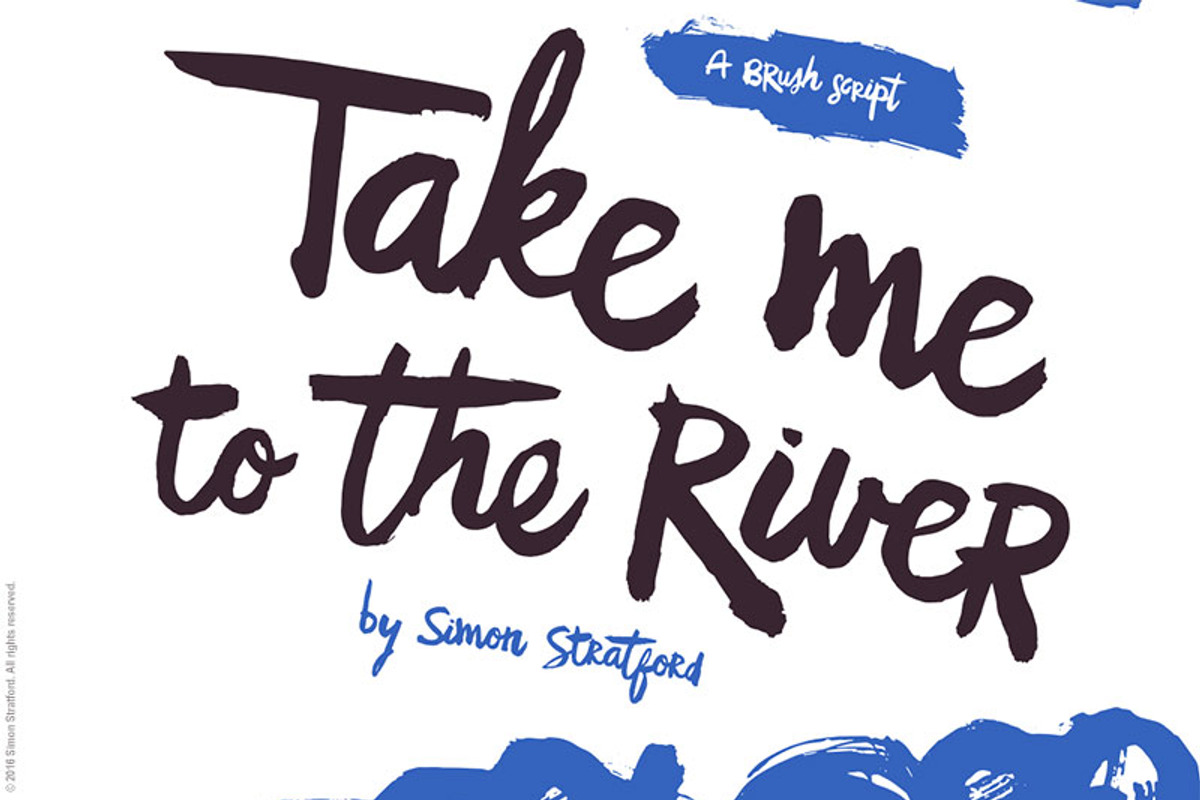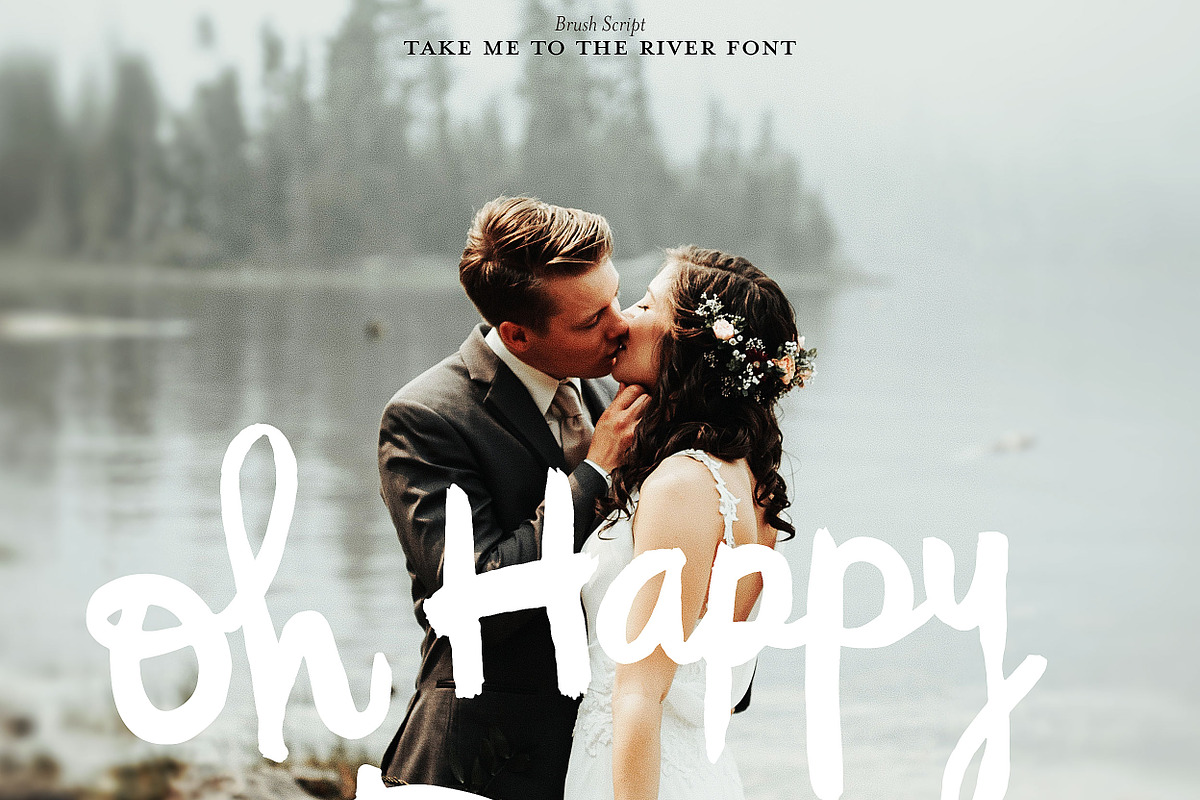
Script font Take me to the river
My aim with Take me to the River was to create an irregular brush feeling with how the letters flow. I wanted the letters to join, but in a more unorthodox or kooky style. So its a cursive brush font with a twist.
The eccentric style might not be your thing—but I love it.
Each glyph was hand painted using a Chinese calligraphy brush dipped into a pot of black Indian ink.
The brush helped create a more dynamic, hand-drawn look and feel. The strokes are bold and have a motion to them. This combined with the ligatures will help you get that handwritten, properly cursive, natural brush script feeling in your design work.
Take me to the River is ideal for a variety of designs. Anything from wedding invites, branding and packaging to posters, book covers and stationery—anything where you want that natural cursive look.
Mix uppercase with the lowercase letters to create a real quirky design.
OpenType features
Each upper and lower case letter has at least two alternatives. Some have much more. Using OpenType you can choose a character you want. You will need software that supports OpenType. Applications like Indesign, Photoshop and Illustrator all support OpenType.
Take me to the River brush script font includes;
- One weight regular
- Ligatures & Alternative glyphs
- Upper and lowercase
- Punctuation & Symbols
- Western European characters
- Central European characters
- South Eastern European characters